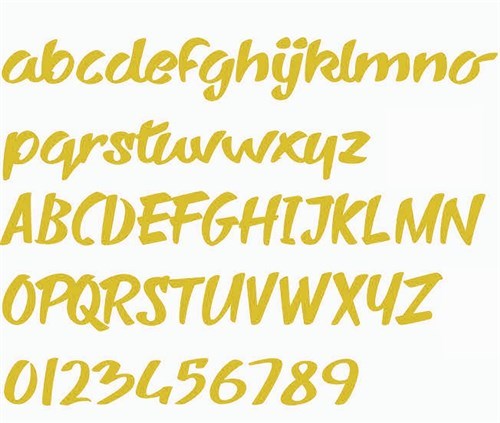
Easy Embroidery is happy to present Megan Embrilliance Font - Casual Flowing Script Style - BX font machine embroidery font which has Casual, flowing script style machine embroidery font perfect for personalizing tote bags and clothing. The design prominently showcases the name 'Megan' in warm yellow. Available in BX font and Embrilliance formats. included. If you would like to view more embroidery fonts and alphabets please search our embroidery fonts page.
Megan Embrilliance Font - Casual Flowing Script Style - BX font